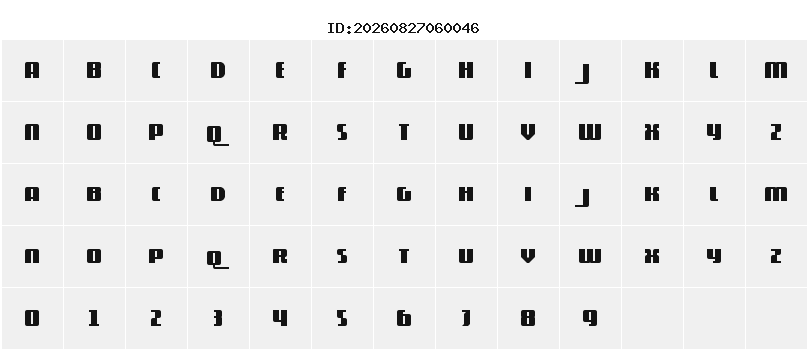
• Font Name: 5Contrastio
• Designer: Noah - 11 year old typomaniac
• Description: ‚Äú5Contrastio‚Äù was built with FontStruct
About 5Contrastio.ttf
5Contrastio.ttf is a modern, elegant sans-serif font designed for ultimate readability and visual harmony. Perfect for branding, headlines, web design, and print materials.